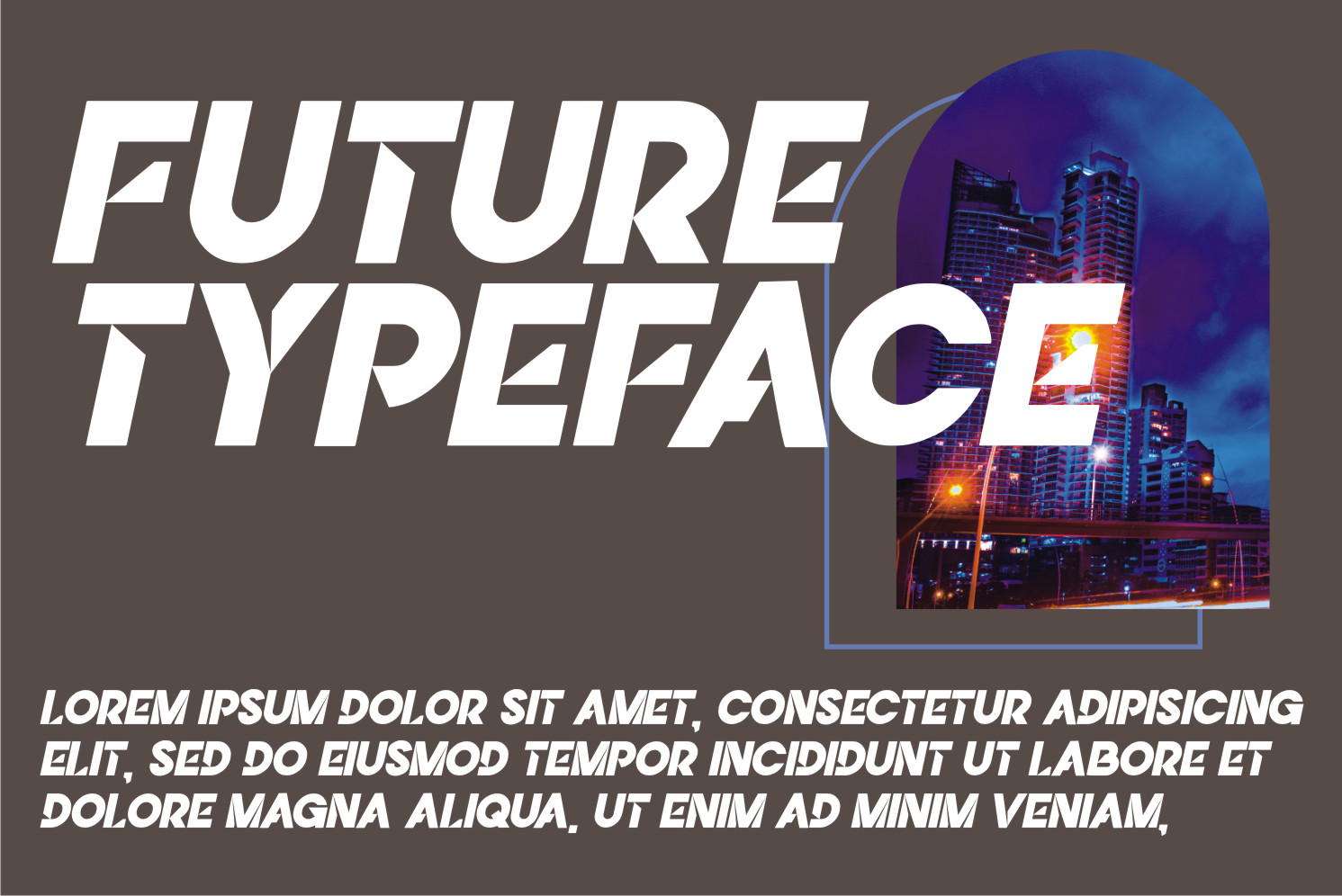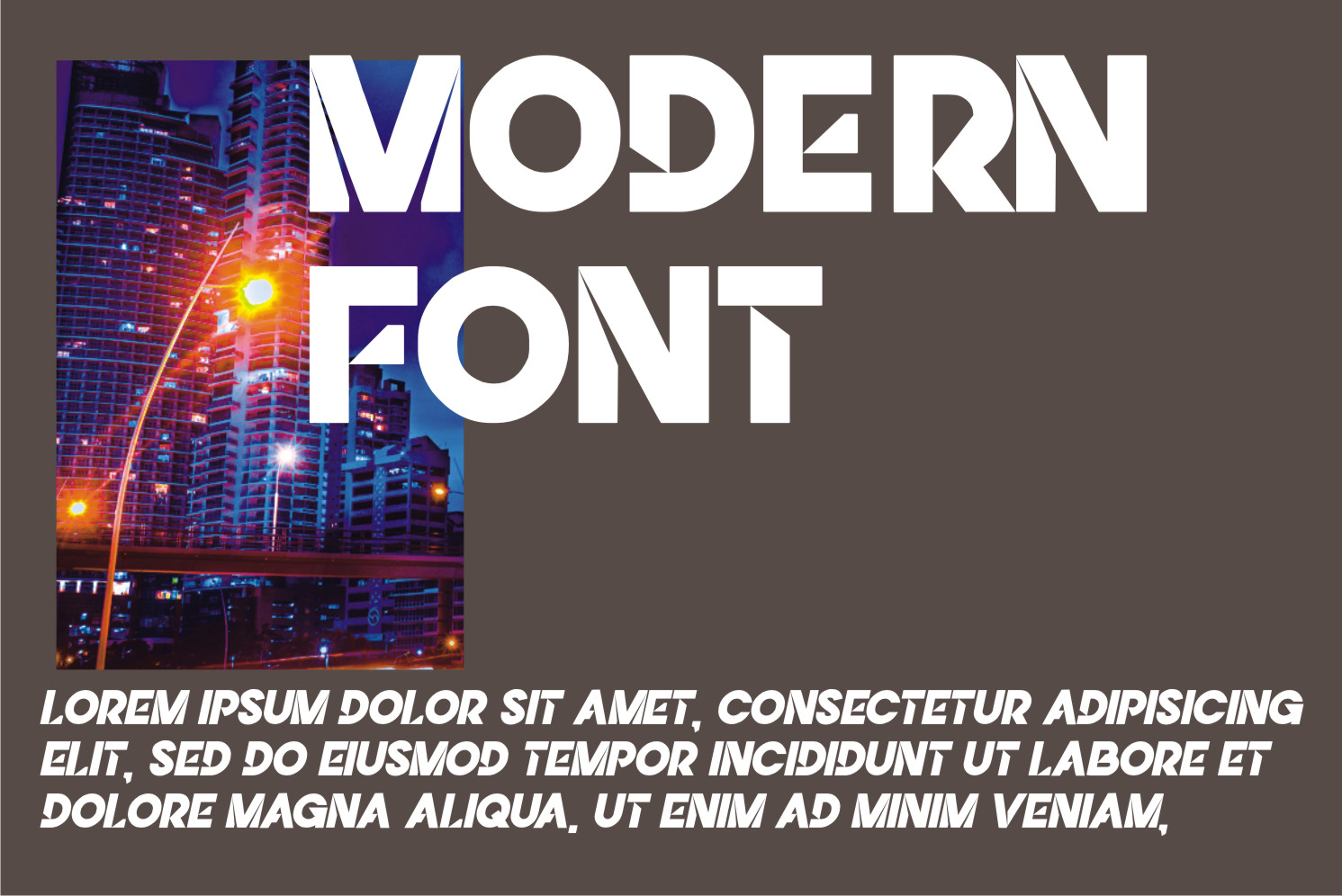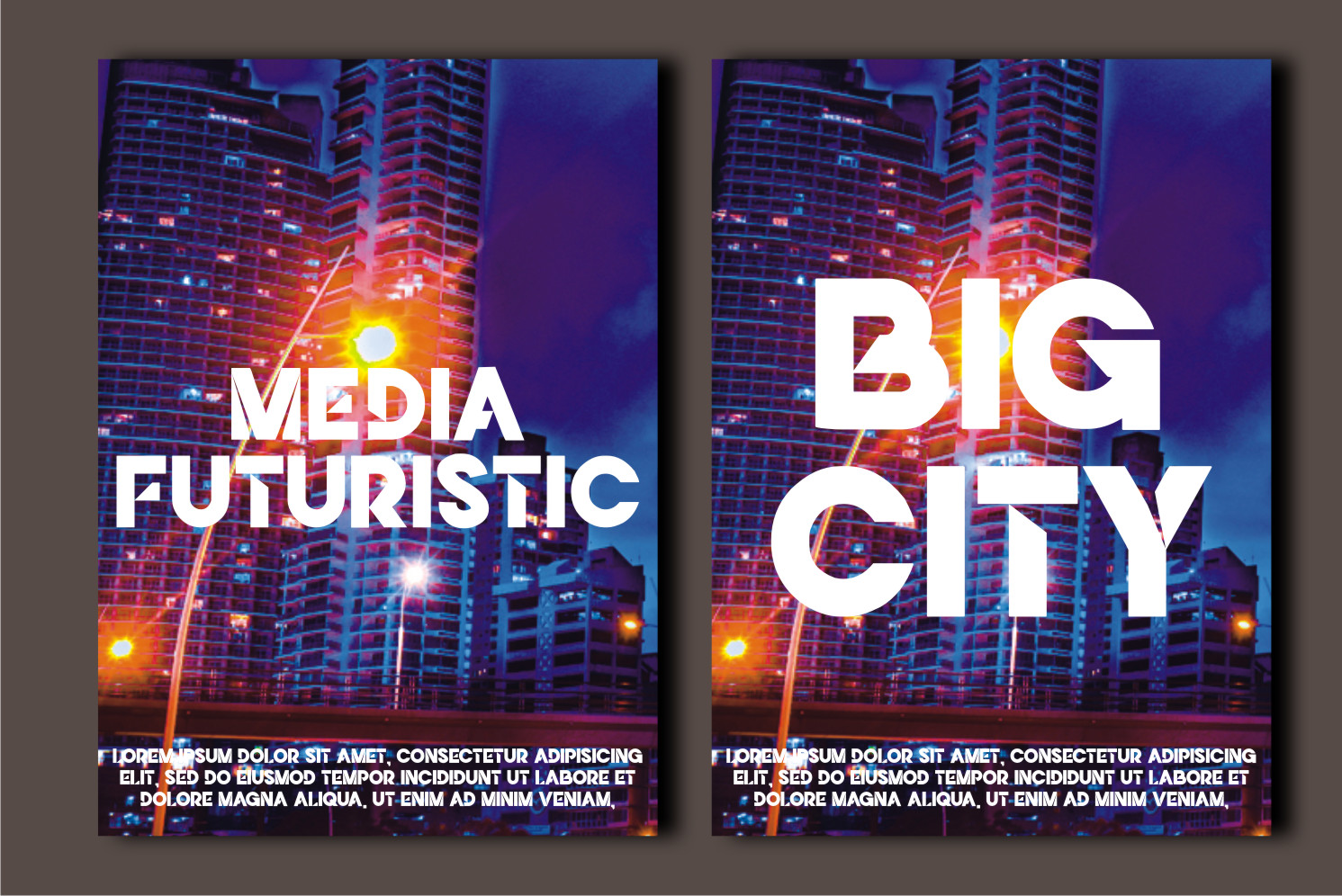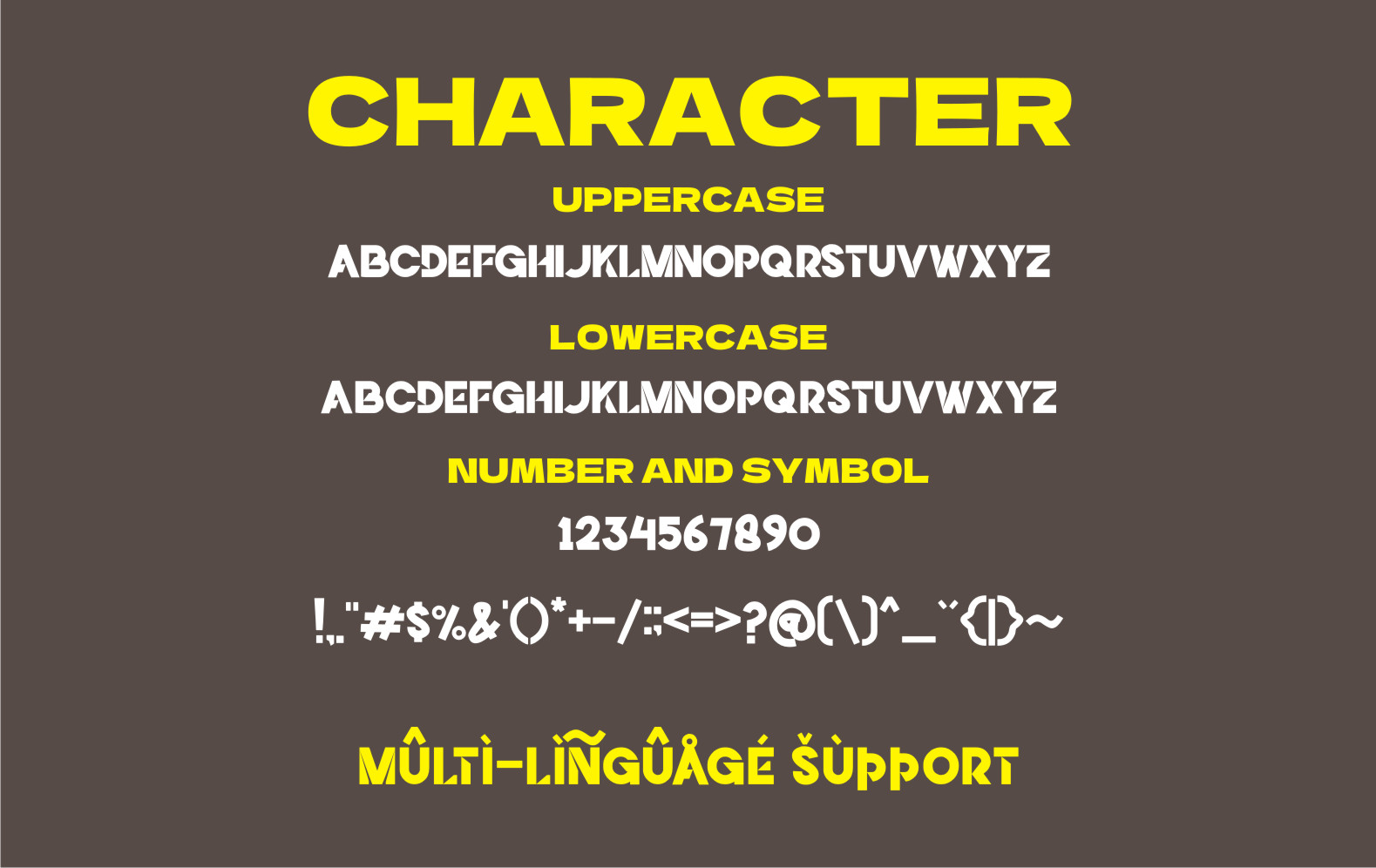
Demon Font
Demon Display Font
It’s a simple and sharp looking display font, that will truly inspire your works. Use this font for your designs and explore its endless possibilities.